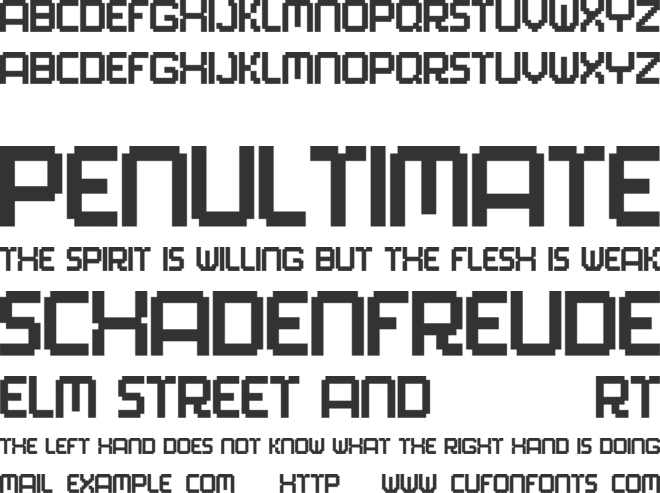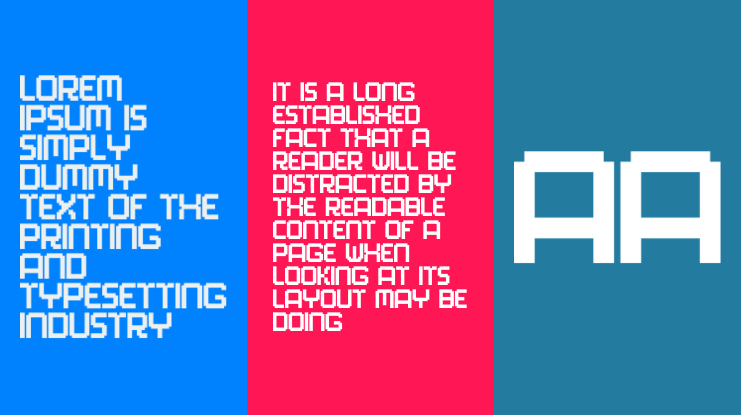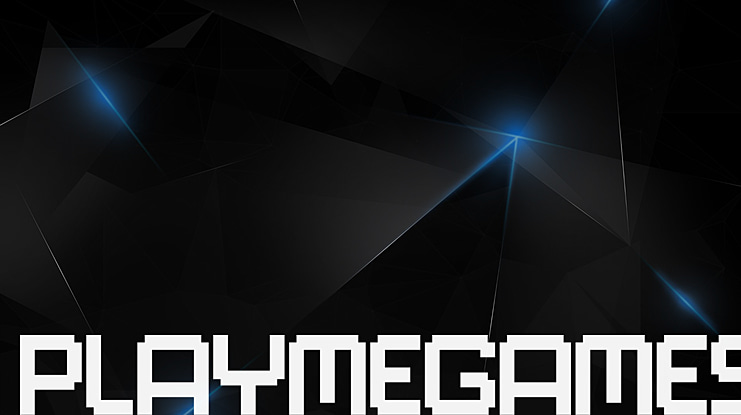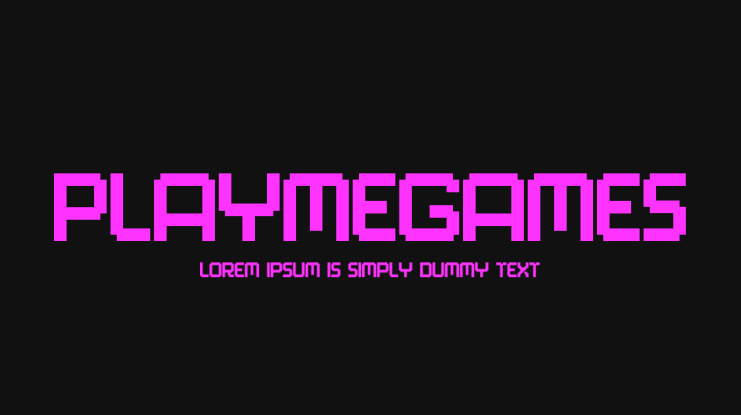
Play.Me.Games font is the best pixel display font. it is suitable for various print media designs, online, games and more.MORE INFORMATIONThis DEMO font is for PERSONAL USE ONLY!ENGLISH:By installing or using this font, you are agreeing to the Product Usage Agreement:1. This font is ONLY for PERSONAL USE. NO COMMERCIAL USE ALLOWED!2. You are requiring a license for PROMOTIONAL or COMMERCIAL use.3. CONTACT ME before any Promotional or Commercial Use!buy font here: www.creativefabrica.com/product/playmegames/ (https://www.creativefabrica.com/product/playmegames/)EMAIL SUPPORT: (mailto:)-------------------INDONESIA:Dengan meng-install font ini, anda dianggap mengerti dan menyetujui semua syarat dan ketentuan penggunaan font dibawah ini:1. Font ini hanya dapat digunakan untuk keperluan "Personal Use", atau untuk keperluan yang sifatnya tidak "komersil", alias tidak menghasilkan profit atau keuntungan dari hasil memanfaatkan/menggunakan font saya. Baik itu untuk individu, Agensi Desain Grafis, Percetakan, atau Perusahaan/Korporasi.2. DILARANG KERAS menggunakan atau memanfaatkan font ini untuk kepeluan Komersial, baik itu untuk Iklan, Promosi, TV, Film, Video, Motion Graphics, Youtube, atau untuk Kemasan Produk (baik Fisik ataupun Digital) atau Media apapun dengan tujuan menghasilkan profit/keuntungan.3. Menggunakan font ini untuk kepentingan Komersial -apapun bentuknya-TANPA IZIN dari saya, akan dikenakan biaya EXTENDED LICENSE.Beli Font Disini : www.creativefabrica.com/product/playmegames/ (https://www.creativefabrica.com/product/playmegames/)Informasi tentang Lisensi apa yang akan anda perlukan, silahkan menghubungi saya:Email:  (mailto:)